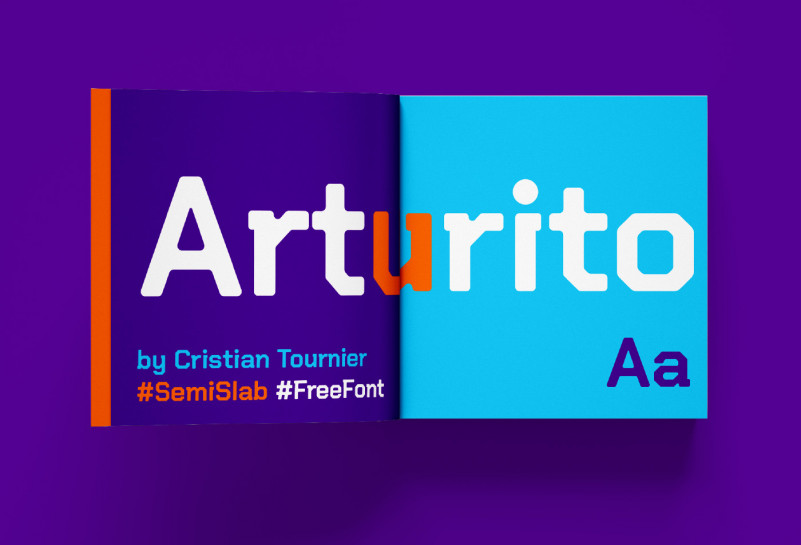
Arturito Typeface
This is a good old typeface. This is a fabulous new font that is easy to pair with others and yet strong enough to stand alone! If you are looking for letters with attitude, Arturito Font is the perfect fit. Designed with minimal lines to keep it simple and artistic. Arturito Font gives your texts modern smart effects. This font is perfect for Esport logo or illustration design, headlines or packaging design. This combination allows you to easily build powerfull designs in a short time.